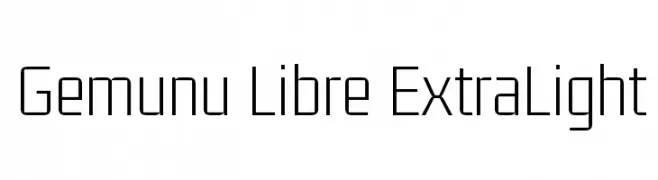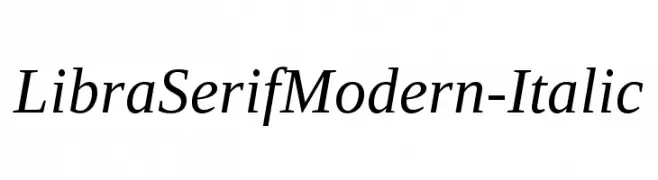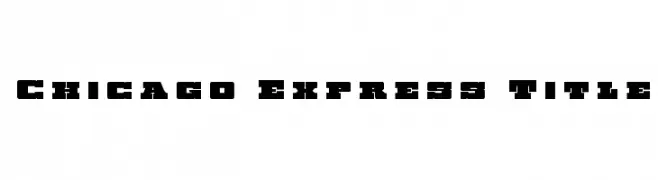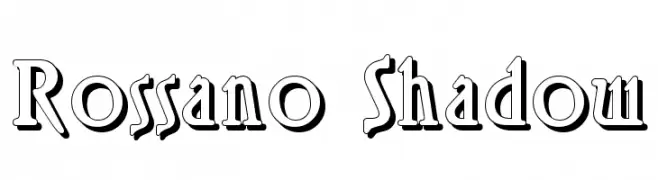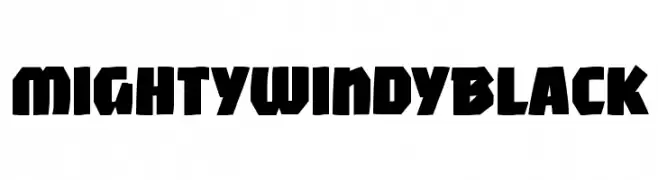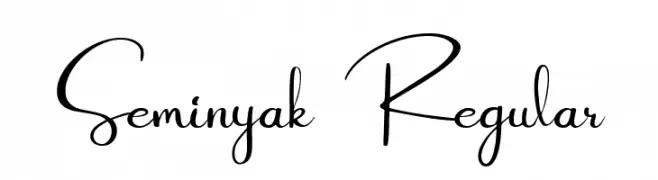
A modern, geometric sans-serif font with a clean and minimalistic design.
An elegant serif font with a modern, italicized style.
A bold, geometric font with strong, blocky characters.
A bold, shadowed font with a dynamic, three-dimensional appearance.
A bold, angular font with a strong, impactful presence.
A playful and elegant script font with a fluid, handwritten style.
A modern serif font with elegant, elongated letterforms and sharp serifs.